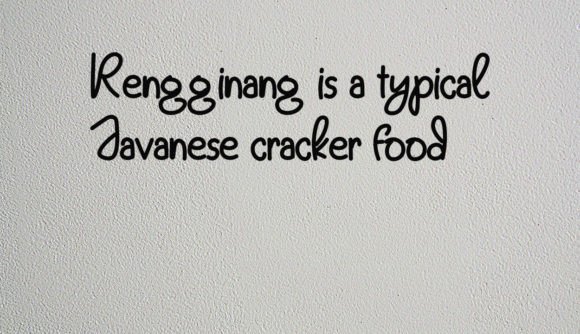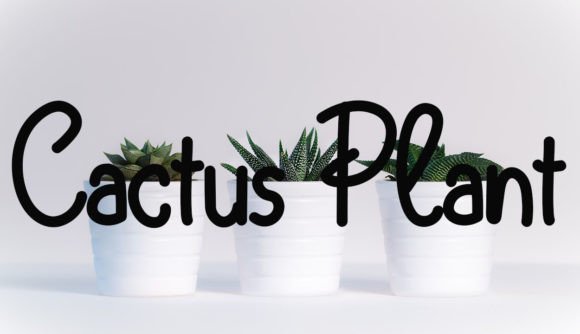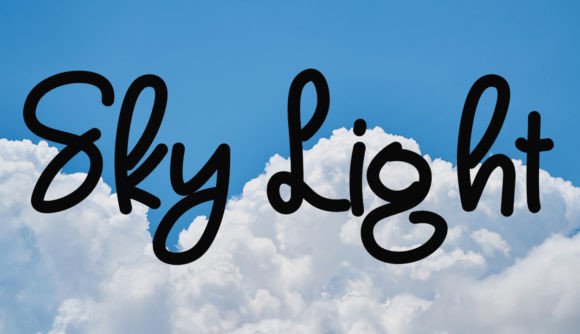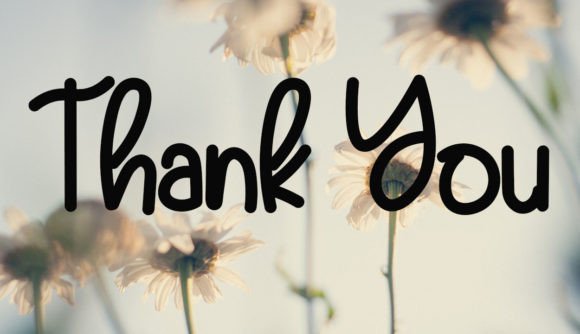
Rengginang Font
About Rengginang Font
“Rengginang” is a neat and beautiful handwritten font that stands out with its elegant touch, making it a perfect choice for various design projects. The font’s distinct and timeless style adds a touch of sophistication to your creations, allowing you to create spectacular designs across different contexts.
The neat and well-crafted characters of “Rengginang” contribute to its overall aesthetic, providing clarity and readability to your text. Whether you’re working on branding, invitations, or any creative project, this font’s elegant touch adds a level of refinement.
Its distinct style sets “Rengginang” apart, making it a versatile font suitable for a variety of favorite projects. The font’s timeless appeal ensures that it remains relevant and attractive across different design trends and applications.
In summary, “Rengginang” is more than just a font; it’s a design asset that brings neatness, beauty, and an elegant touch to your creative endeavors. Whether you’re creating branding materials or working on personal projects, let the distinct and timeless style of “Rengginang” elevate your designs and make them truly spectacular.